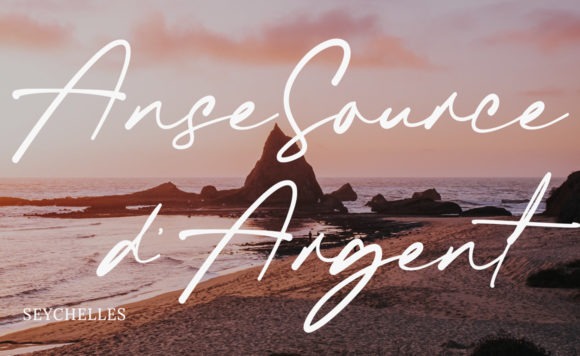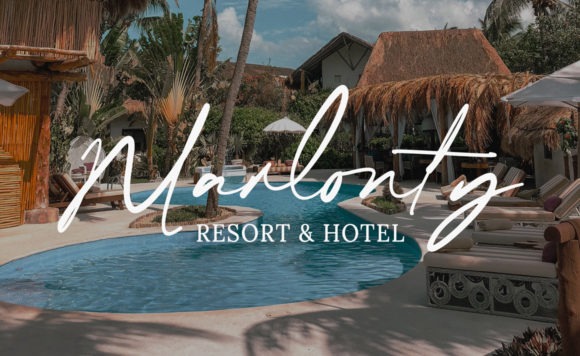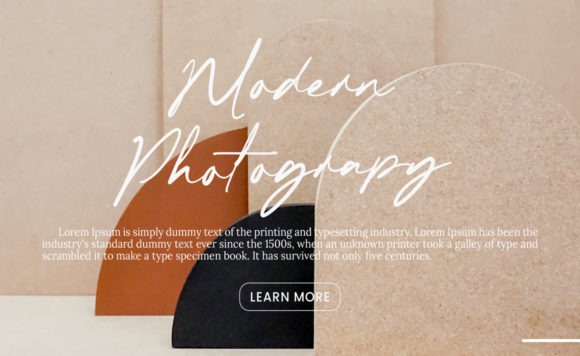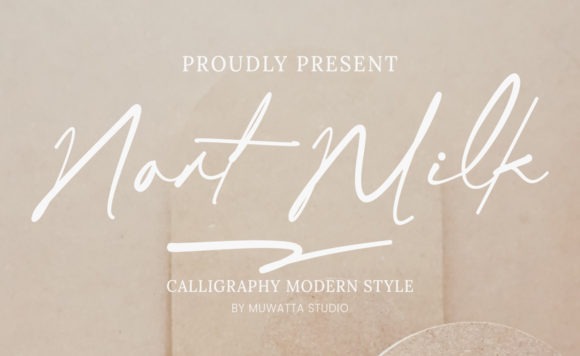
Nort Milk Handwritten Font
It’s a completely handwritten modern font work, which has its own unique characterization of script font styles. Fall in love with its ravishing style, and use it to create awesome logos, branding designs, signatures, web fonts, stationery art, eye-catching social media posts, and more! This font is PUA encoded which means you can access all of the glyphs and swashes with ease!